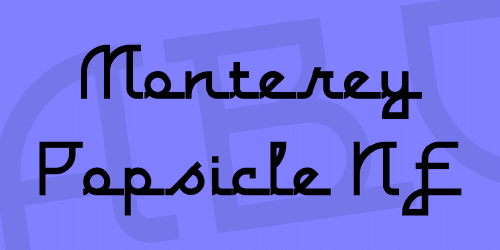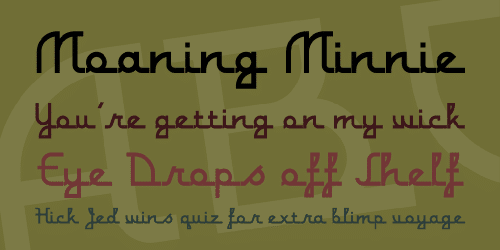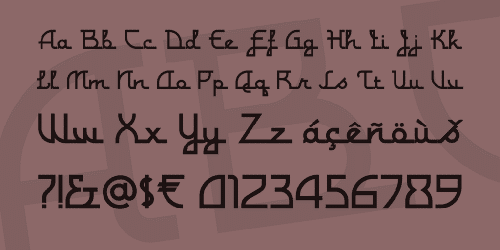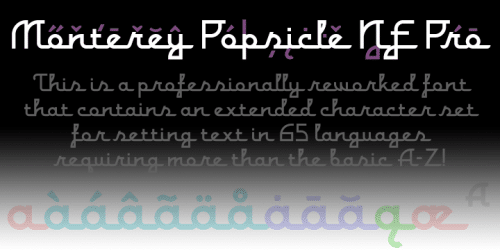
A faux script font typical of classic american branding. I have totally reworked all the letterforms: they started with a “notch” and ended flat – I have removed the “notch” and rounded off the ending stroke, so now you can actually start words with the lowercase letters. I have also improved the spacing (especially after the capitals), and of course added all the “foreign” glyphs. A classic is reborn!
Nick Curtis says: “Just another “somewhere from the thirties to the fifties” kinda script, named kinda after a sixties rock festival.”
- Designer: Nick Curtis, Roger Nelsson